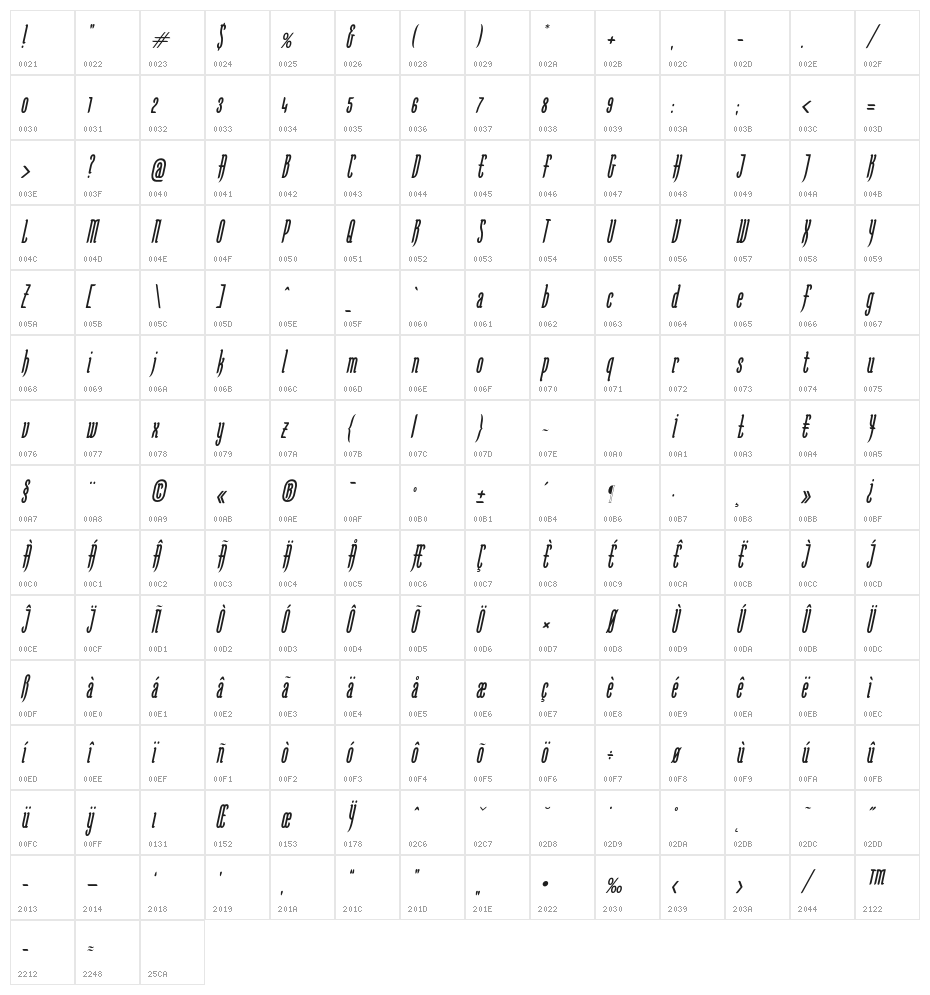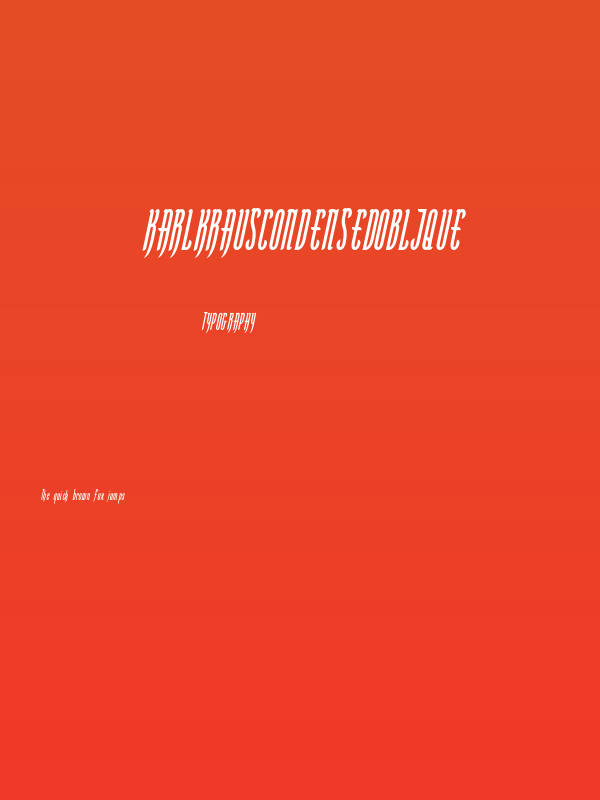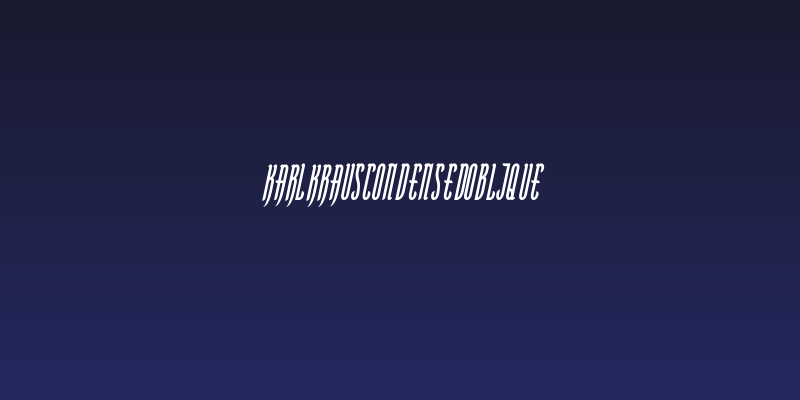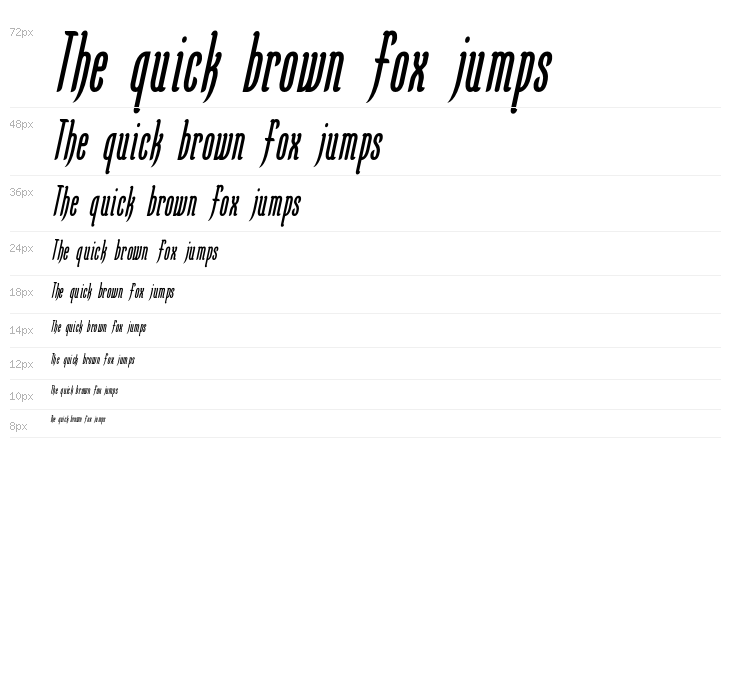
KarlKrausCondensedOblique Font
KarlKrausCondensedOblique Description
This font features a distinct oblique style with condensed letterforms, giving it a sleek and elongated appearance. The strokes are consistent, with a moderate contrast between thick and thin lines, enhancing its dynamic and energetic feel. The uppercase letters are tall and commanding, while the lowercase letters maintain a cohesive flow. The numbers and special characters are designed to complement the overall aesthetic, making it versatile for various applications. The font's unique style is both modern and slightly retro, suitable for creative and bold design projects.